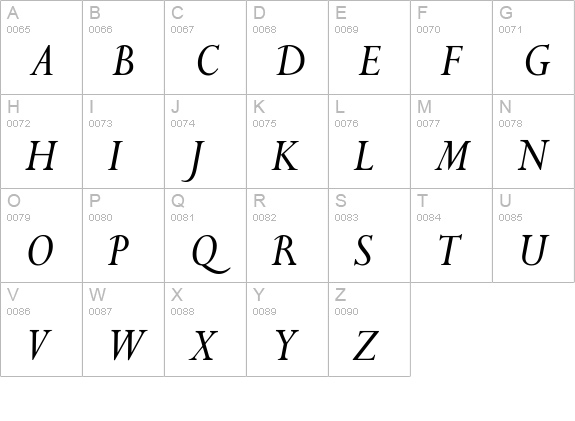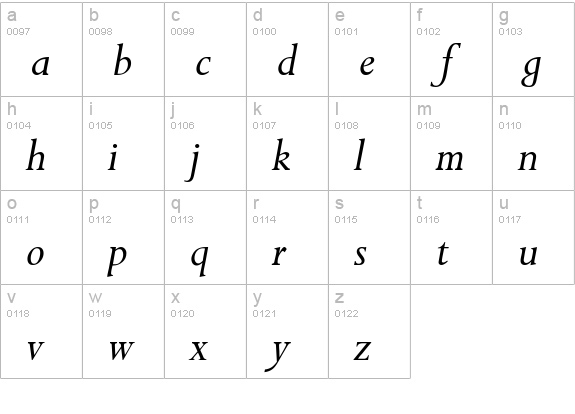
P700-Roman-Italic Font Details
P700-Roman-Italic is a distinctive, italic variant in the P700 typeface family \xE2\x80\x94 well suited to design and typography projects.
The P700-Roman-Italic font is a beautifully crafted typeface that exudes elegance and sophistication. With its sleek, slanted design, this font is perfect for adding a touch of class to any project. The P700-Roman-Italic font strikes the perfect balance between traditional Roman style and modern Italic flair, making it a versatile choice for a wide range of design applications. What's even better is that this exquisite font is available for free download at FontsMarket.com. Whether you're working on a professional design project or simply looking to elevate your personal creations, the P700-Roman-Italic font is sure to impress with its timeless charm and effortless style. Download this stunning font today and add a touch of sophistication to your designs!